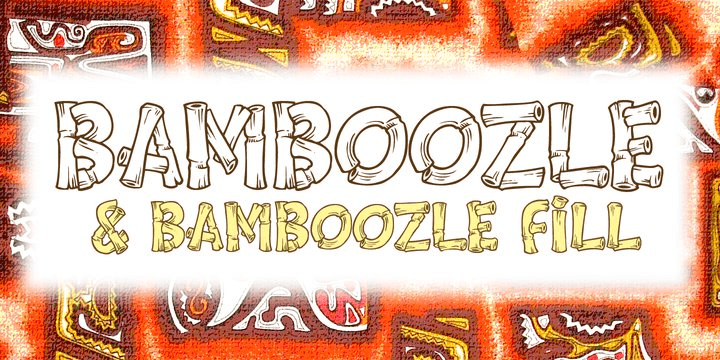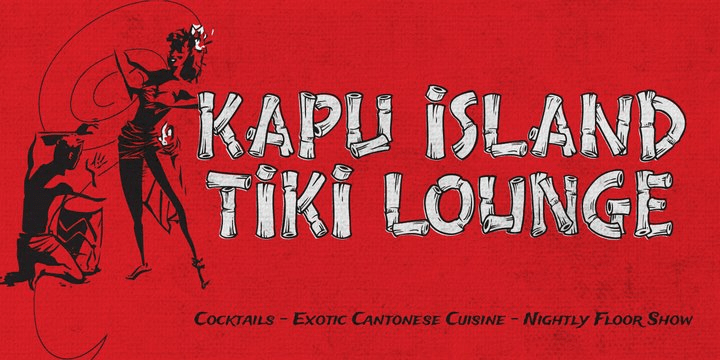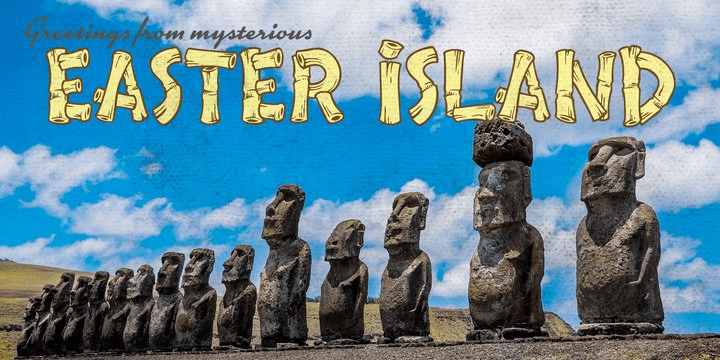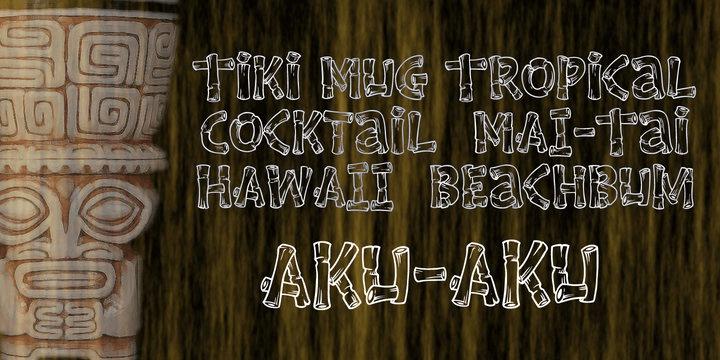
Bamboozle
Font Family by Sideshow
With all the aloha you could ask for, famous tiki artist and sculptor Squid has created Bamboozle! It looks like real bamboo because it's made from real bamboo! Really! Bamboozle is perfect for any Hawaiian luau, pig roast, tropical gathering, or enjoying strong rum drinks with friends!